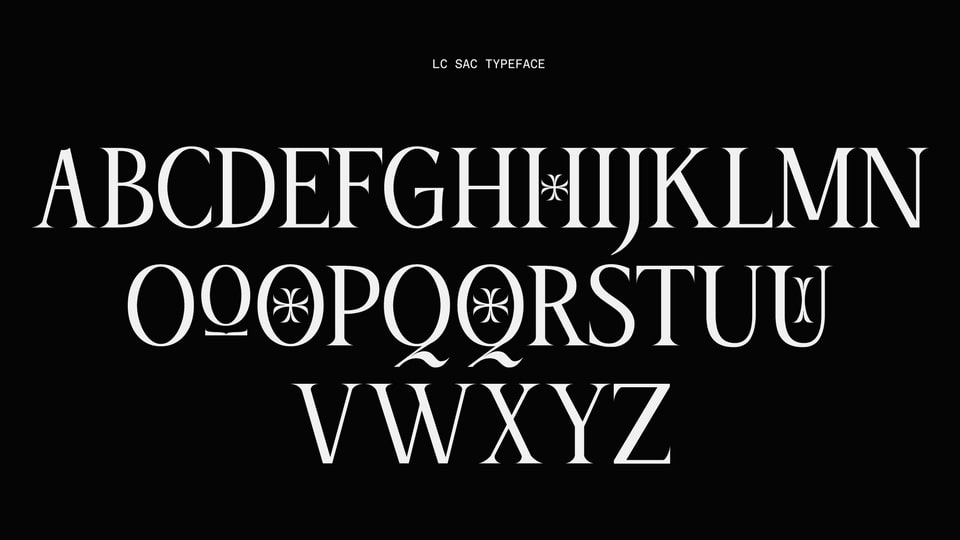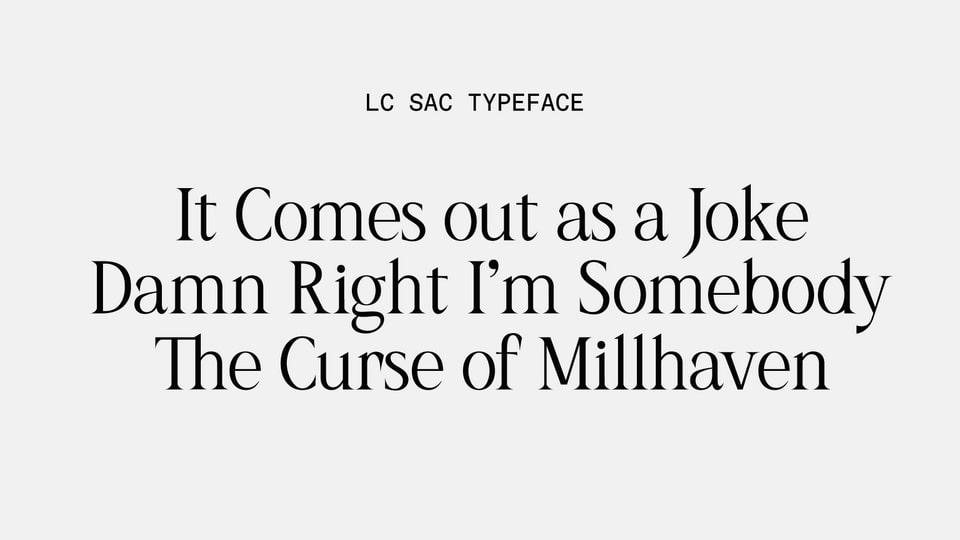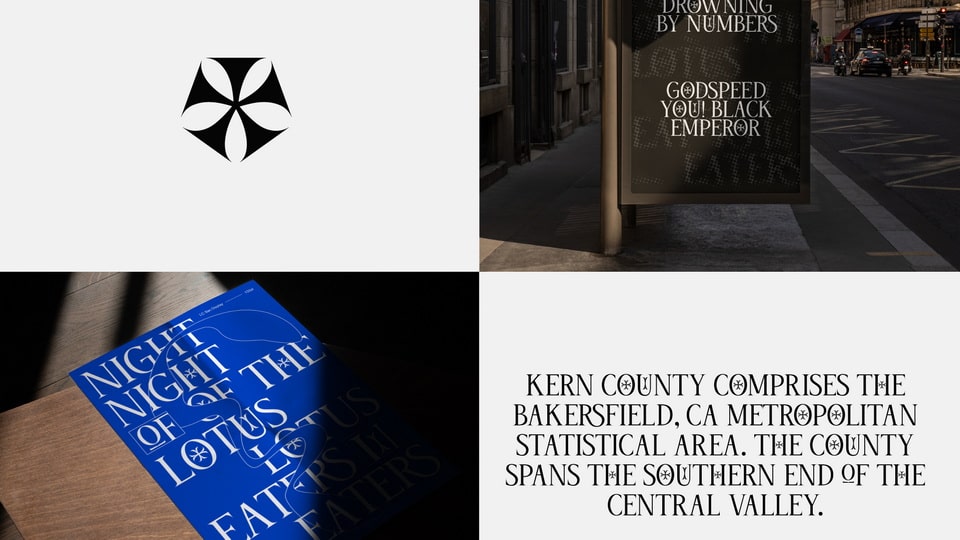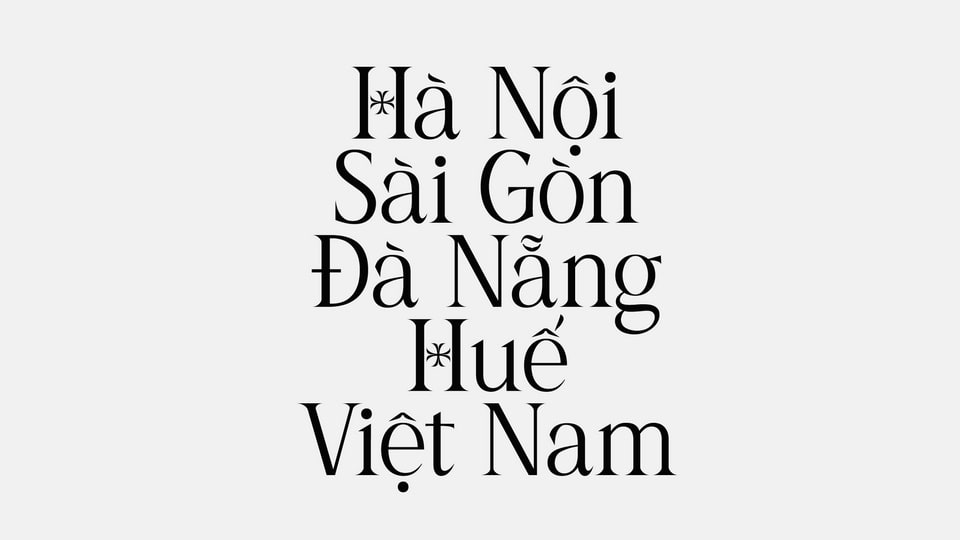
LC Sac is a decorative serif typeface with an elegant and sophisticated look.
In Vietnamese, Sac means beauty and sharp. LC Sac Display is strongly inspired by roman square capitals in 4th century with very sharp serif. Throughout the process, some modern details were conscientiously developed to magnify its characteristic.